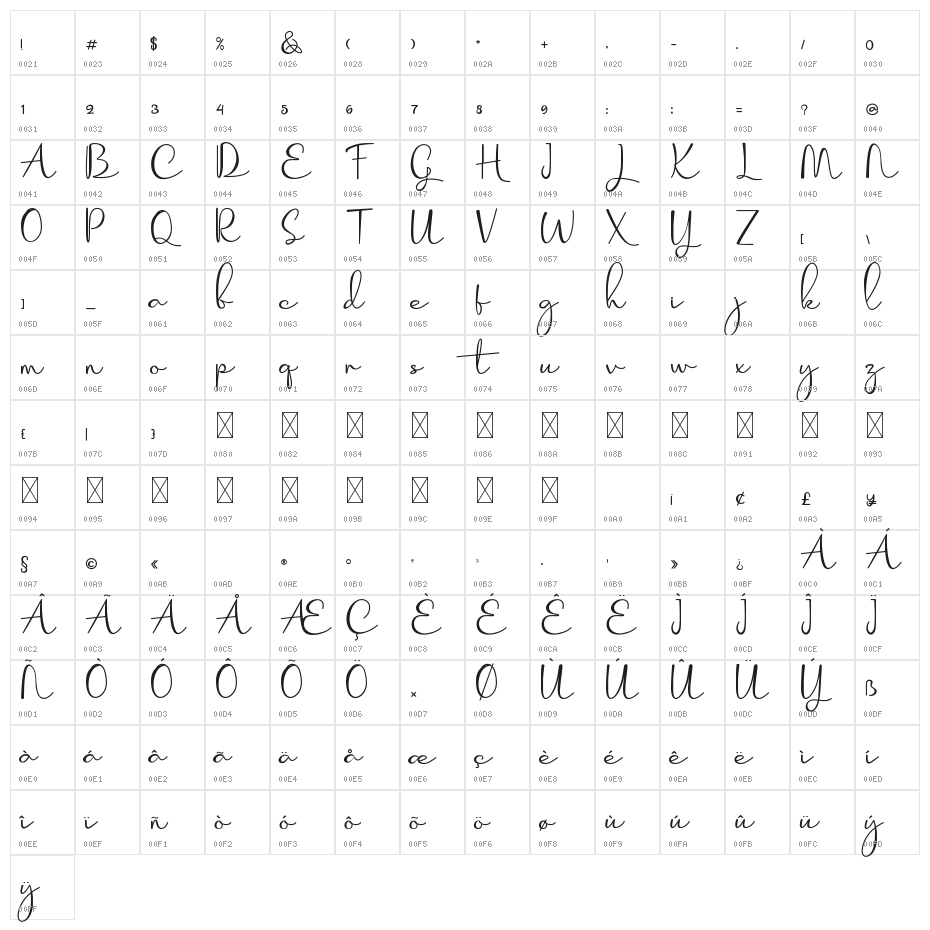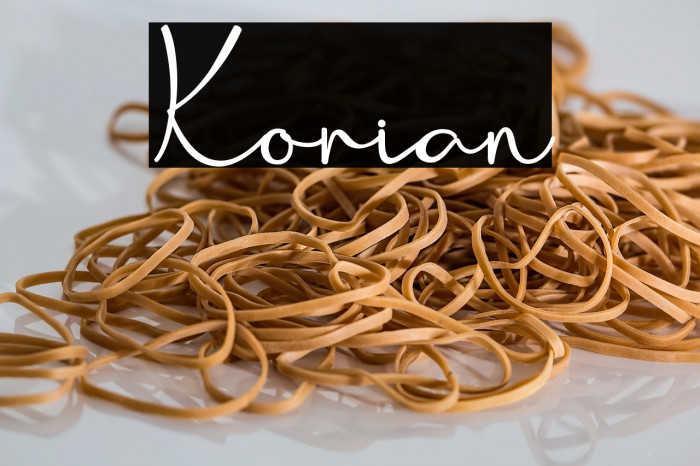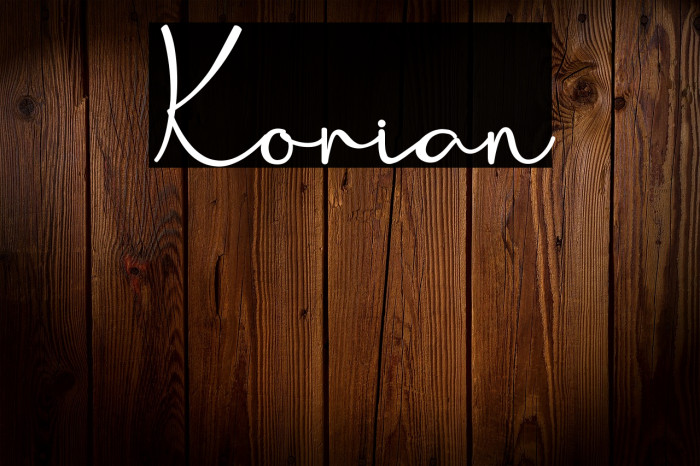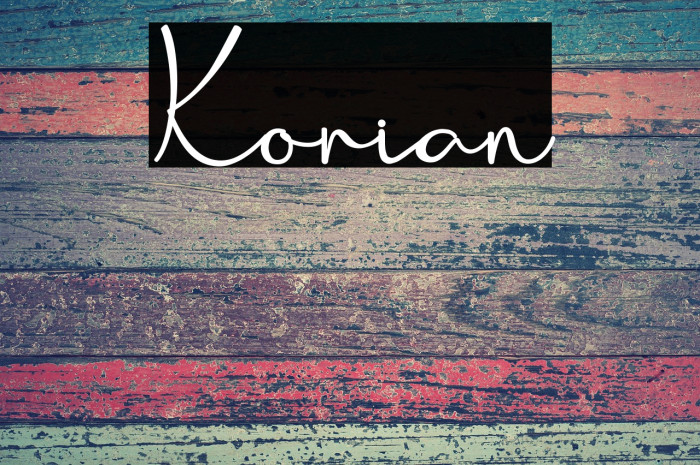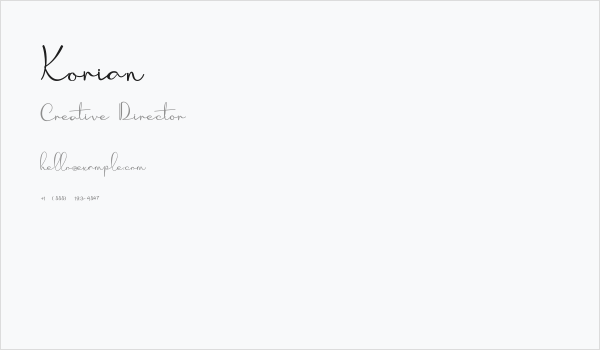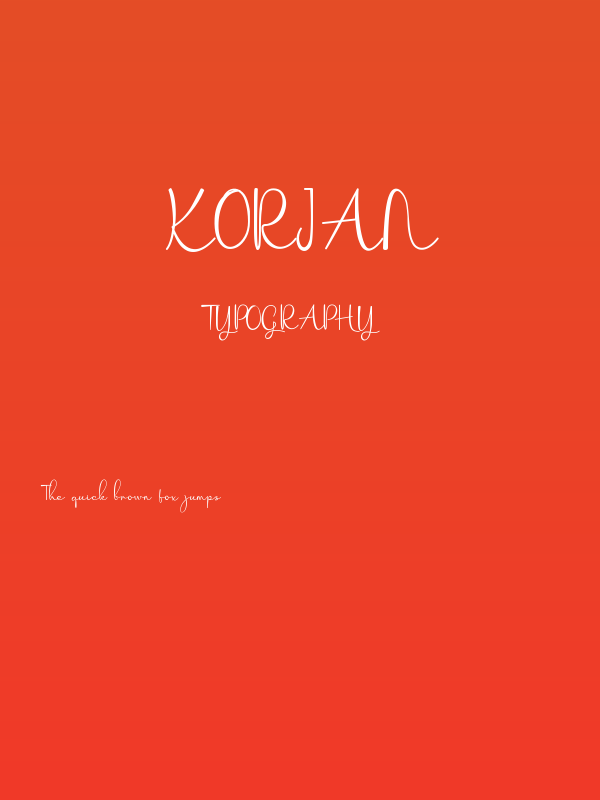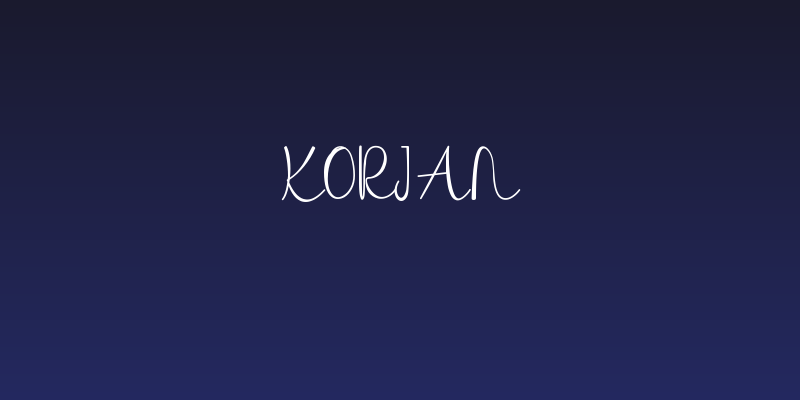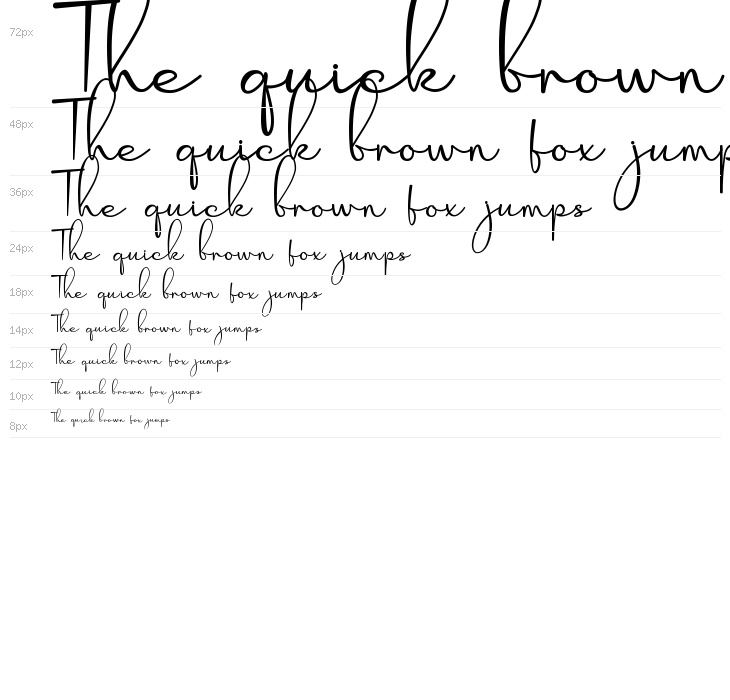
Korian Font
Korian Description
This font features a playful and elegant script style with a handwritten touch. The uppercase letters are fluid and connected, giving a sense of movement and grace. The lowercase letters maintain a consistent flow, with some characters extending below the baseline, adding a dynamic feel. The numerals are clear and legible, while the special characters complement the overall style with their unique curves and loops. This font is perfect for adding a personal and artistic flair to any project, combining sophistication with a casual vibe.
| Use Case | Logos, Invitations, Social Media |
| Proposed Projects | Ideal for wedding invitations, greeting cards, branding, and social media graphics. |